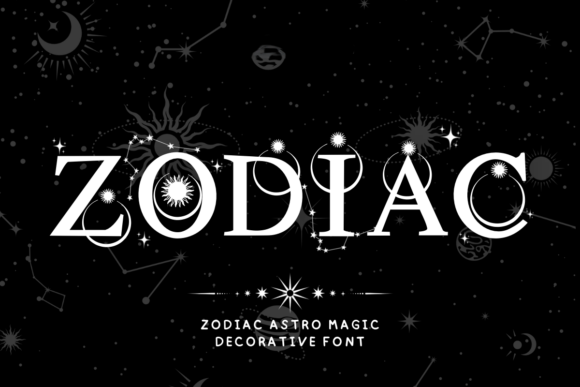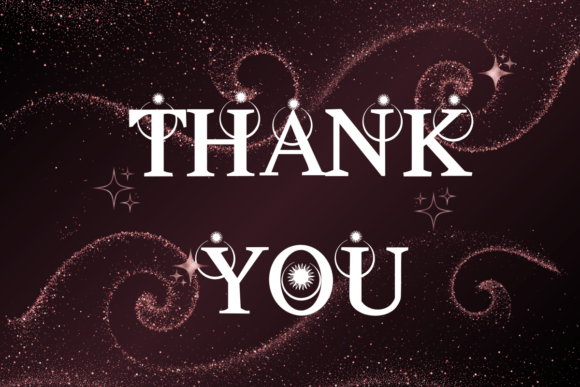
Zodiac Astro Magic Font
Zodiac Astro Magic charms with its decorative allure, adding a sprinkle of whimsy to anything it embellishes, from note-taking and diary entries to the creation of heartfelt greeting cards. Beyond these uses, its versatility shines through in an array of designs, whether it’s breathing life into banners, lending personality to your written content, gracing your favorite mug, making a statement on a shirt, or dignifying your stationery. Its magical touch even translates into the digital world, making your social media posts pop with a subtlety that’s distinctly Zodiac Astro Magic. Seamlessly bridging the gap between functional and aesthetic, Zodiac Astro Magic is a font with endless potential.